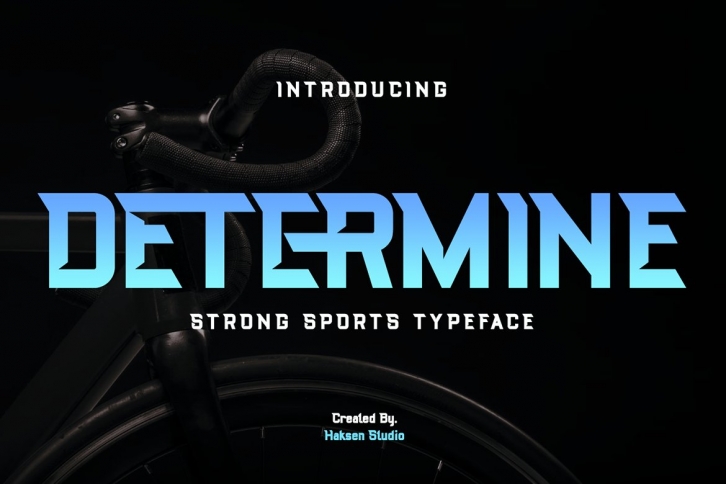
DETERMINE is a gorgeous font that was realeased on June 2, 2022. The font can be used in many style contexts and design environments. Perfect for invitations, magazines, websites, logos, and more! It was designed by Haksen and the file size is 1.36 MB. Thanks for checking out this font!